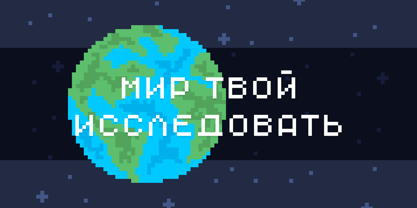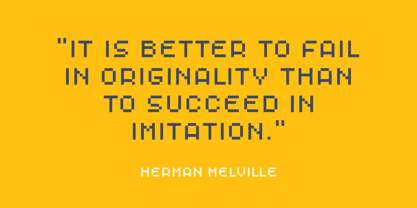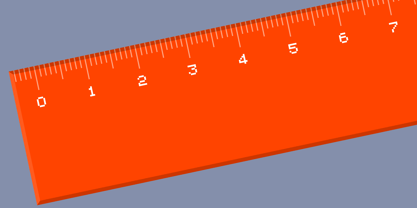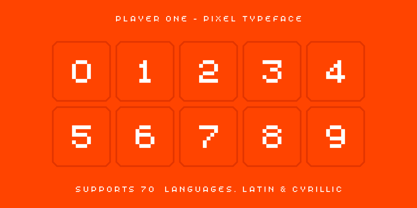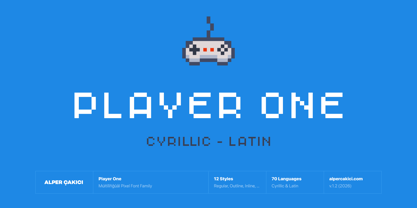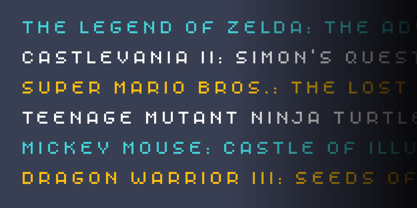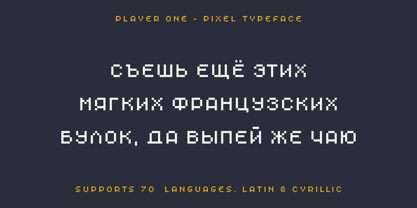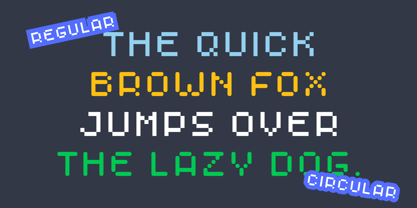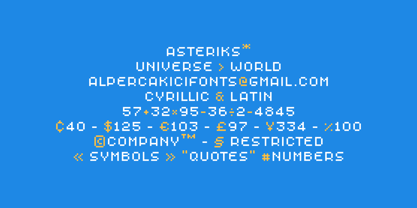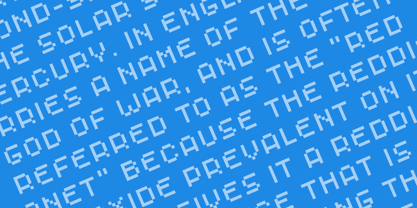
Player One
by AlperCakici
The Player One Font Family was designed by Alper Çakıcı and published by AlperCakici. Player One contains 1 styles.
Player One is a modern, versatile pixel font with excellent kerning, making it ideal for both digital and print use. It features full support for the Cyrillic language, allowing for seamless multilingual communication. Player One's unique design combines classic proportions with a contemporary feel, making it stand out from other same categories fonts.